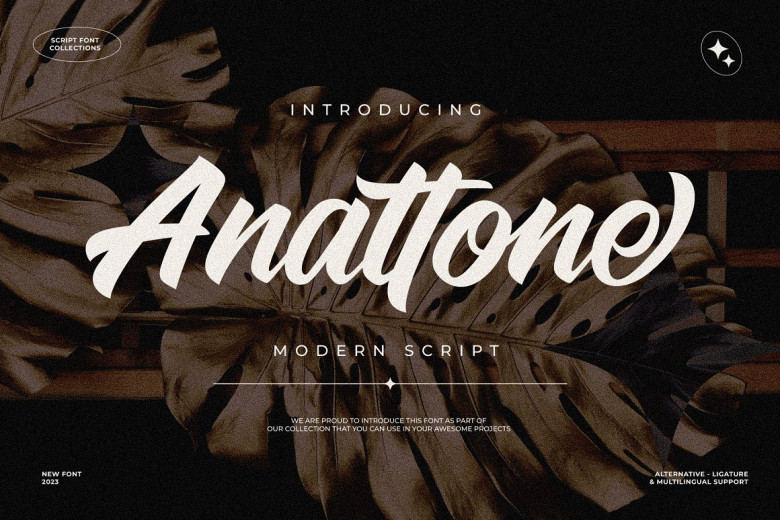
Anattone Font
Anattone Modern Script Font, our captivating and flexible script font designed to add sophistication and modernity to your projects, is now available! Perfect for food or fashion industries as well as birthdays, weddings or engagement parties; its modern yet stylish design draws attention and elevates designs to new heights of success.
Anattone Script Font